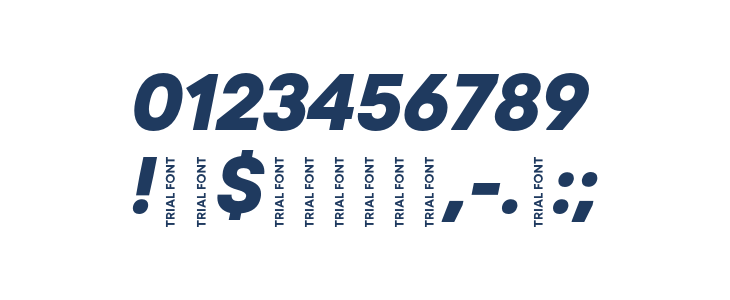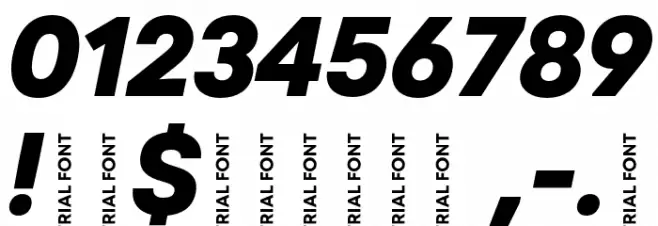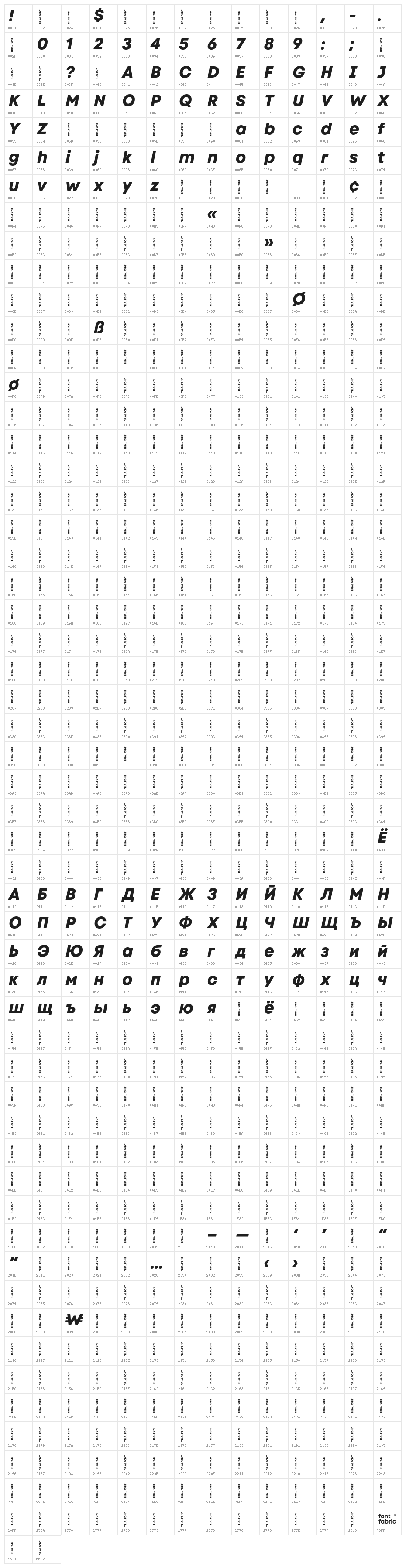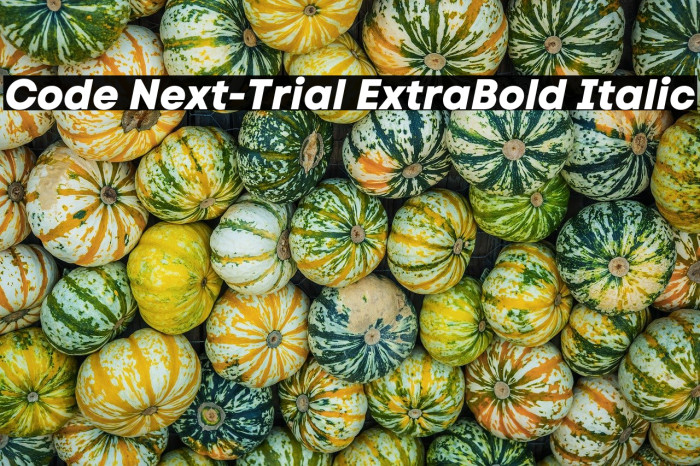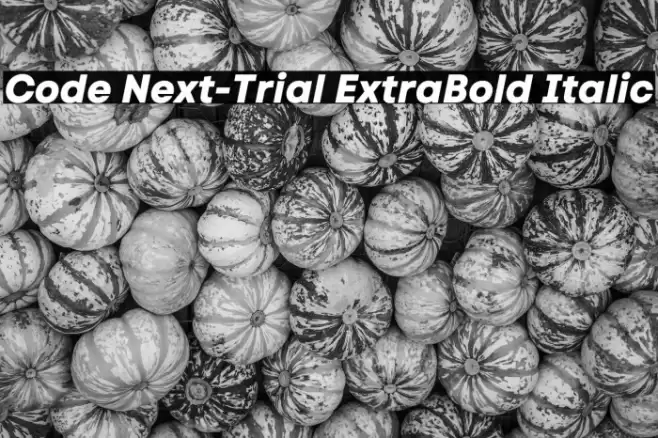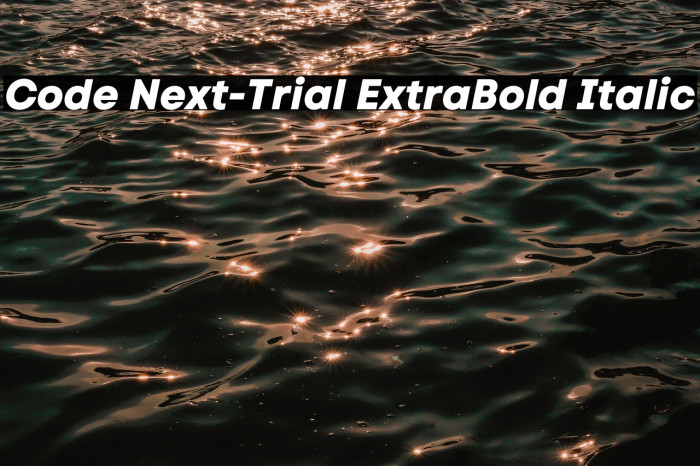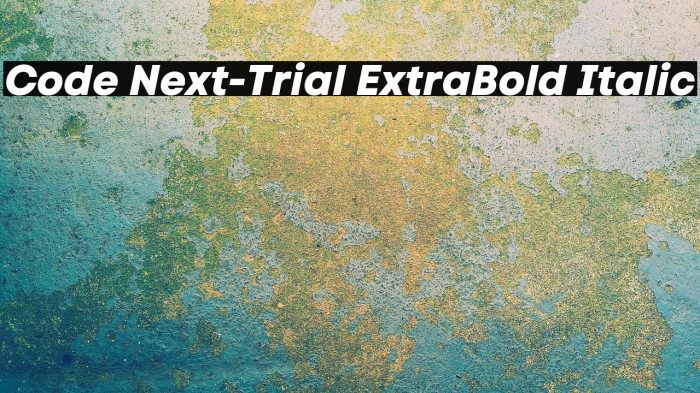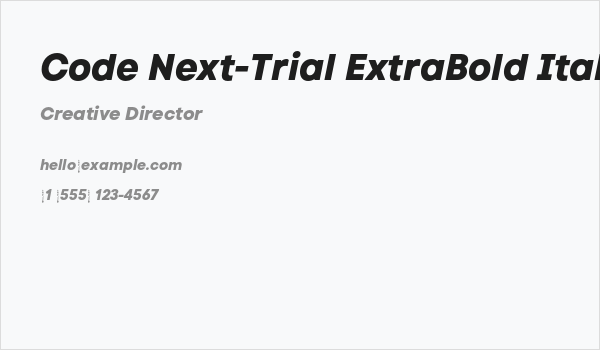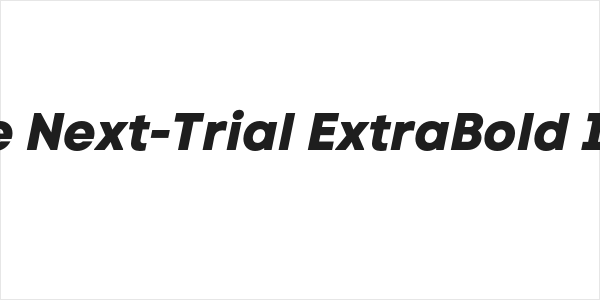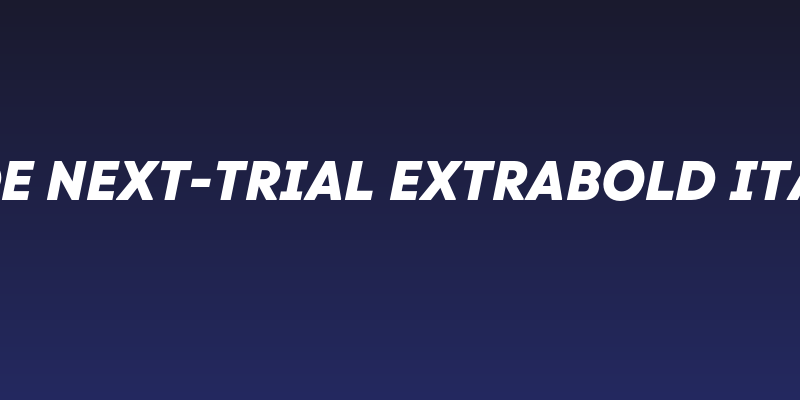
Code Next-Trial ExtraBold Italic Font
Code Next-Trial ExtraBold Italic Description
This font features a bold and dynamic style with a strong italic slant, giving it a sense of motion and energy. The characters are thick and robust, making them highly visible and impactful. The uppercase and lowercase letters maintain a consistent weight, ensuring readability across various sizes. The numerals are equally bold, providing a cohesive look throughout. Special characters are designed with the same boldness, ensuring they stand out. This font is ideal for projects that require a strong visual presence.
| Proposed Projects | Ideal for headlines, posters, branding, and advertising where a strong impact is needed. |